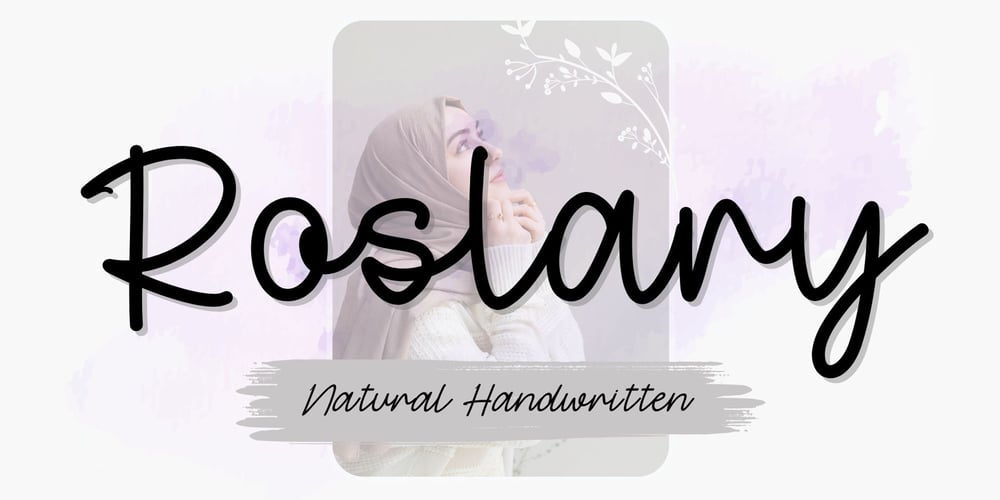
Roslary
Roslary font
Roslary Font Family was designed by Ahmad Afandi and published by Letterafandi Studio. Roslary contains 2 styles and family package options. Immerse yourself in the elegant and organic charm of Roslary, a captivating handwritten font. Perfectly capturing the beauty of freehand expression, it’s a versatile choice that enriches every design canvas with its natural sophistication. Whether your creativity leads you to logo design, invitations, or even impactful social media content, Roslary has the typographic finesse to fulfill your every design aspiration. With its natural rhythm and earthy elegance, Roslary transforms simple words into poignant visual narratives.